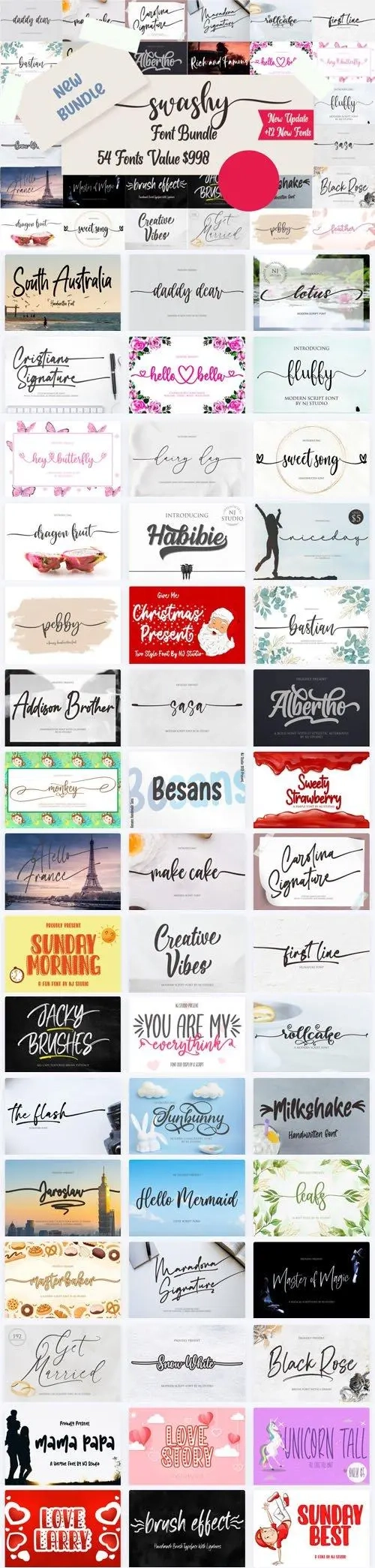
Introducing the Swashy Font Bundle, a carefully curated collection featuring 54 premium fonts designed to elevate your design projects. This updated bundle includes a variety of styles, from elegant scripts to bold display fonts, ensuring you have the perfect typeface for any occasion.
• 54 unique font styles
• Includes script, serif, sans-serif, and display fonts
• Rich variety of weights and styles
• High-quality design suitable for professional use
These fonts are perfect for branding, logos, web design, print materials, and UI projects. Use them to create eye-catching headlines or elegant text that stands out.